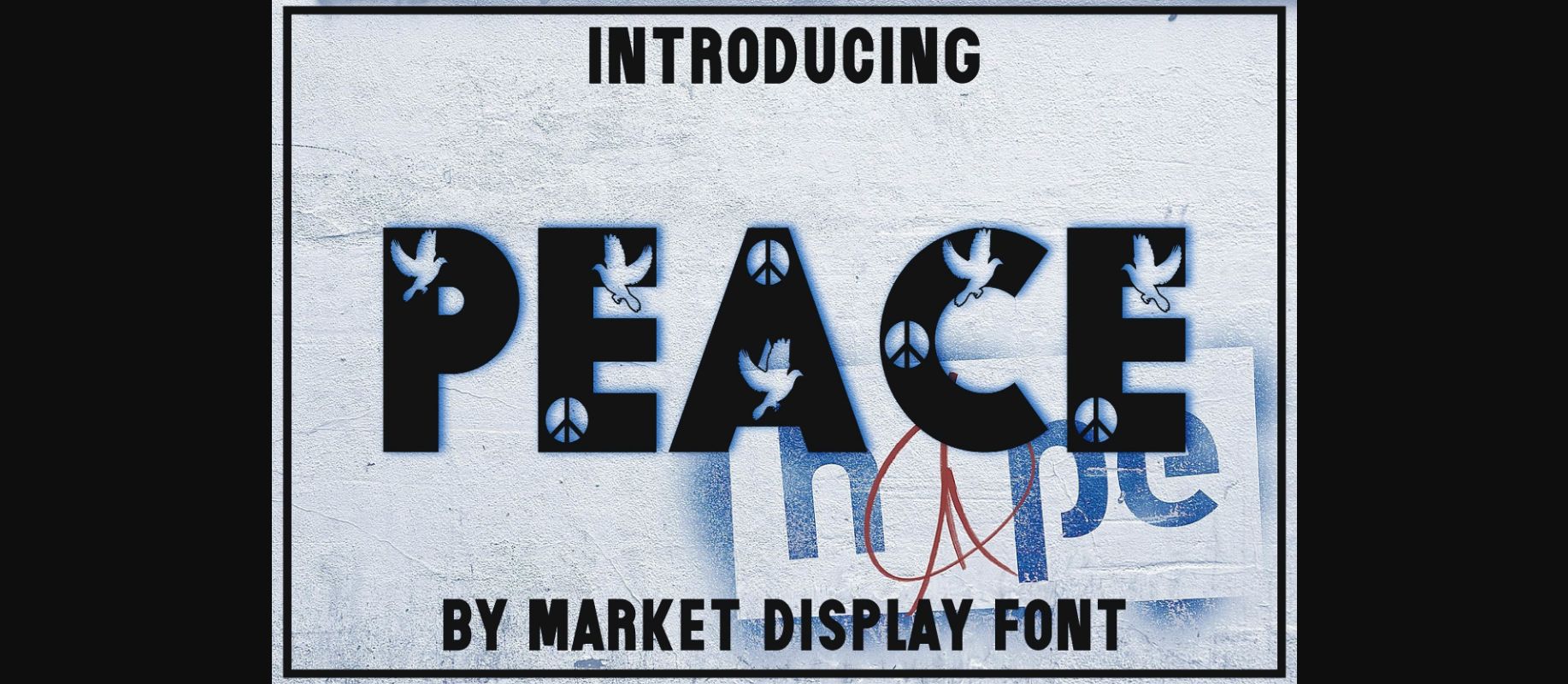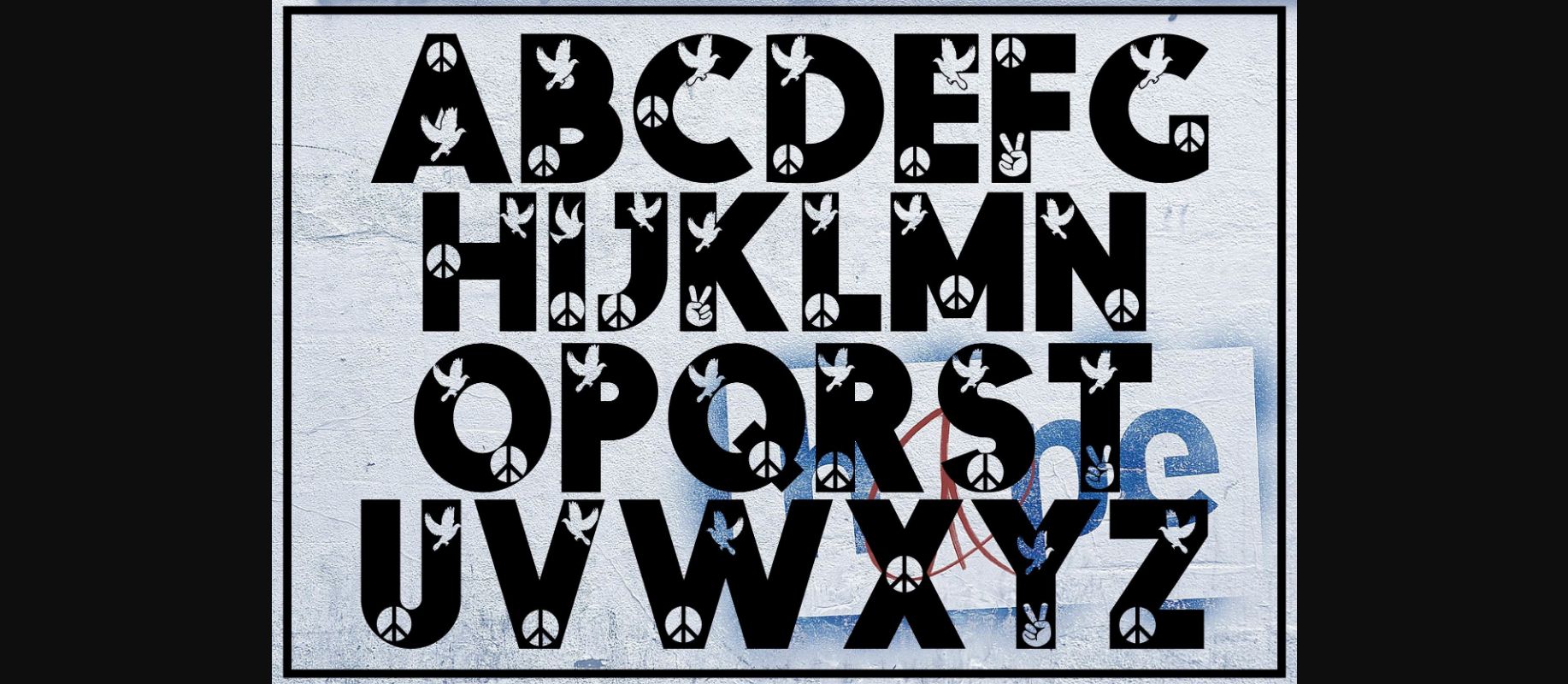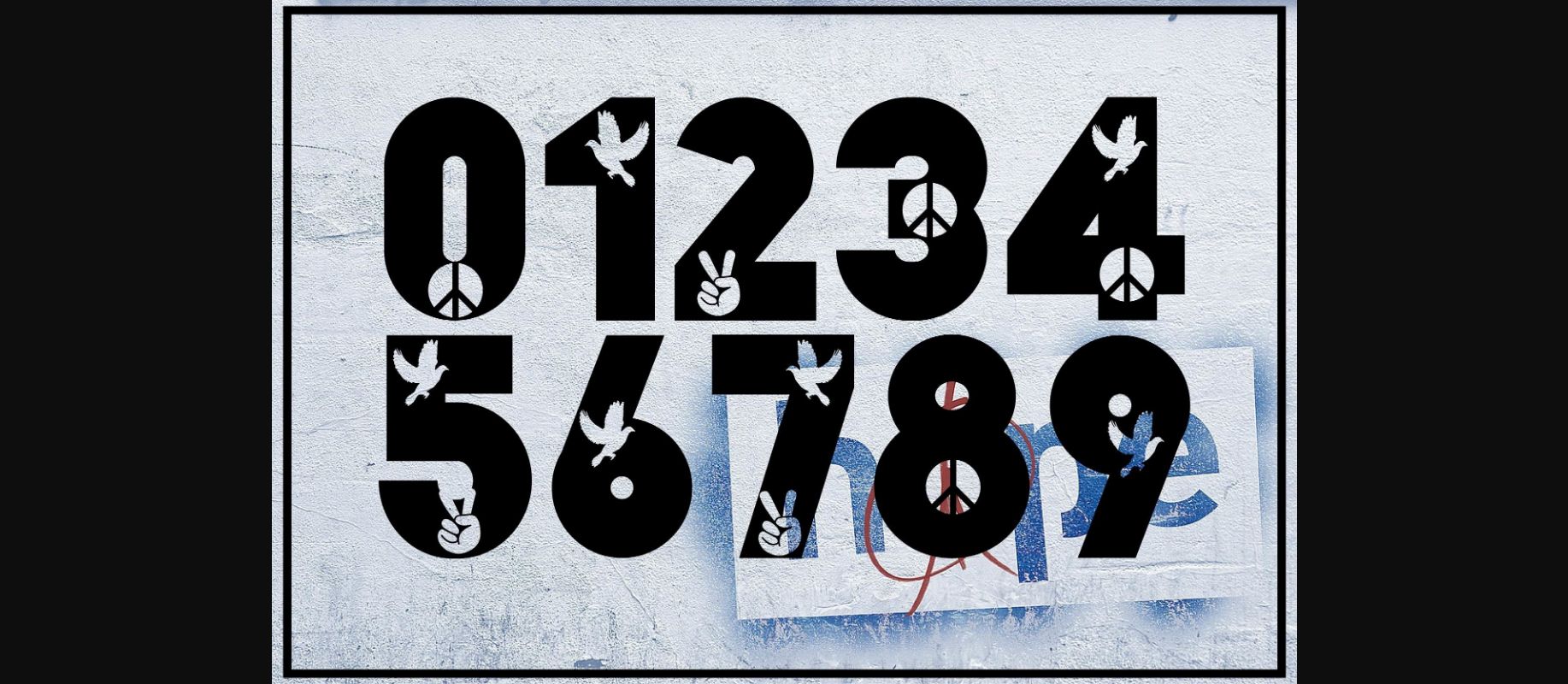
About Peace Font
Peace is a thick-lettered decorative font perfect for various quotes and teaching materials! Its authentic look will add a personal and realistic feel to your designs.